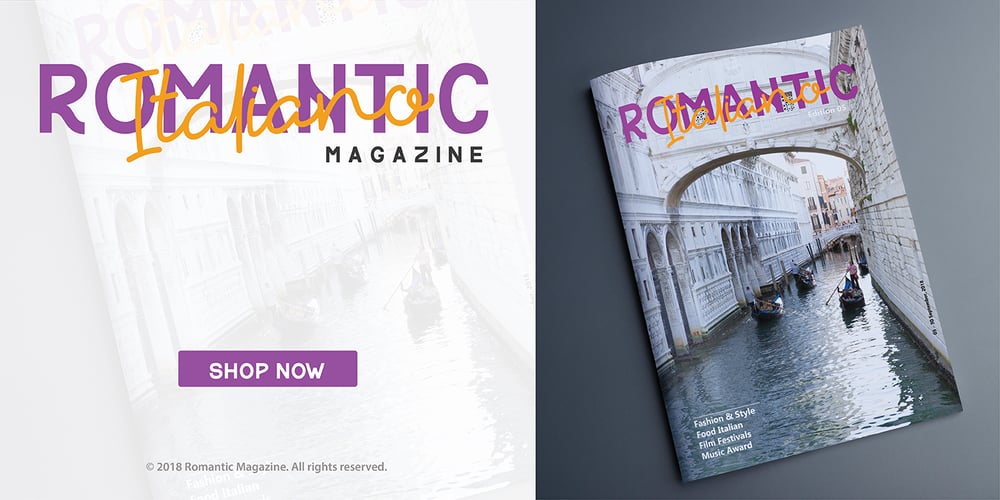
Hiyagh Ahey Font Family was designed by Lukman Hidayat and published by Viaction Type.Co. Hiyagh Ahey contains 2 styles and family package options. Hiyagh Ahey Script & Sans font with original handwriting style, looks very natural and beautiful. It is suitable for boutique brand, photography, magazine, quote, business card, logo, poster and many more. There are two types of fonts: script and sans, script is equipped with opentype features such as ligature, contextual alternates and multilingual support. Opentype Feature : Standard Ligature. Contextual Alternates. Multilingual & Punctuation. PUA Encoded. I hope you enjoy and thank you.